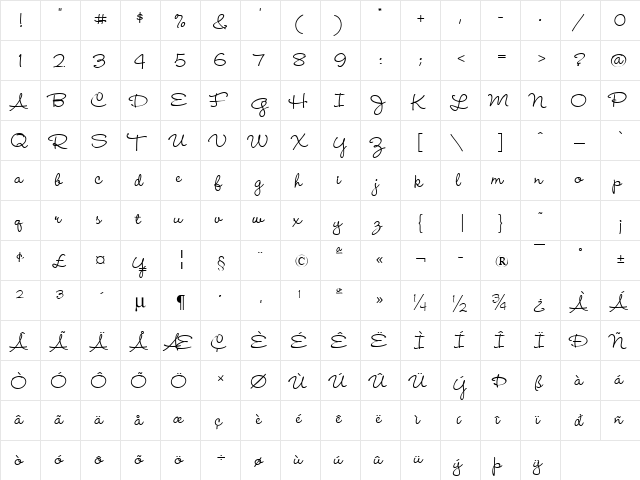
Wendy Medium Roman
| Foundry | Monotype Typography |
| Designer | Garrett Boge |
Design Context for Wendy Medium Typeface
Wendy Medium is a composed and adaptable typeface that performs quietly and consistently across a wide range of design contexts.